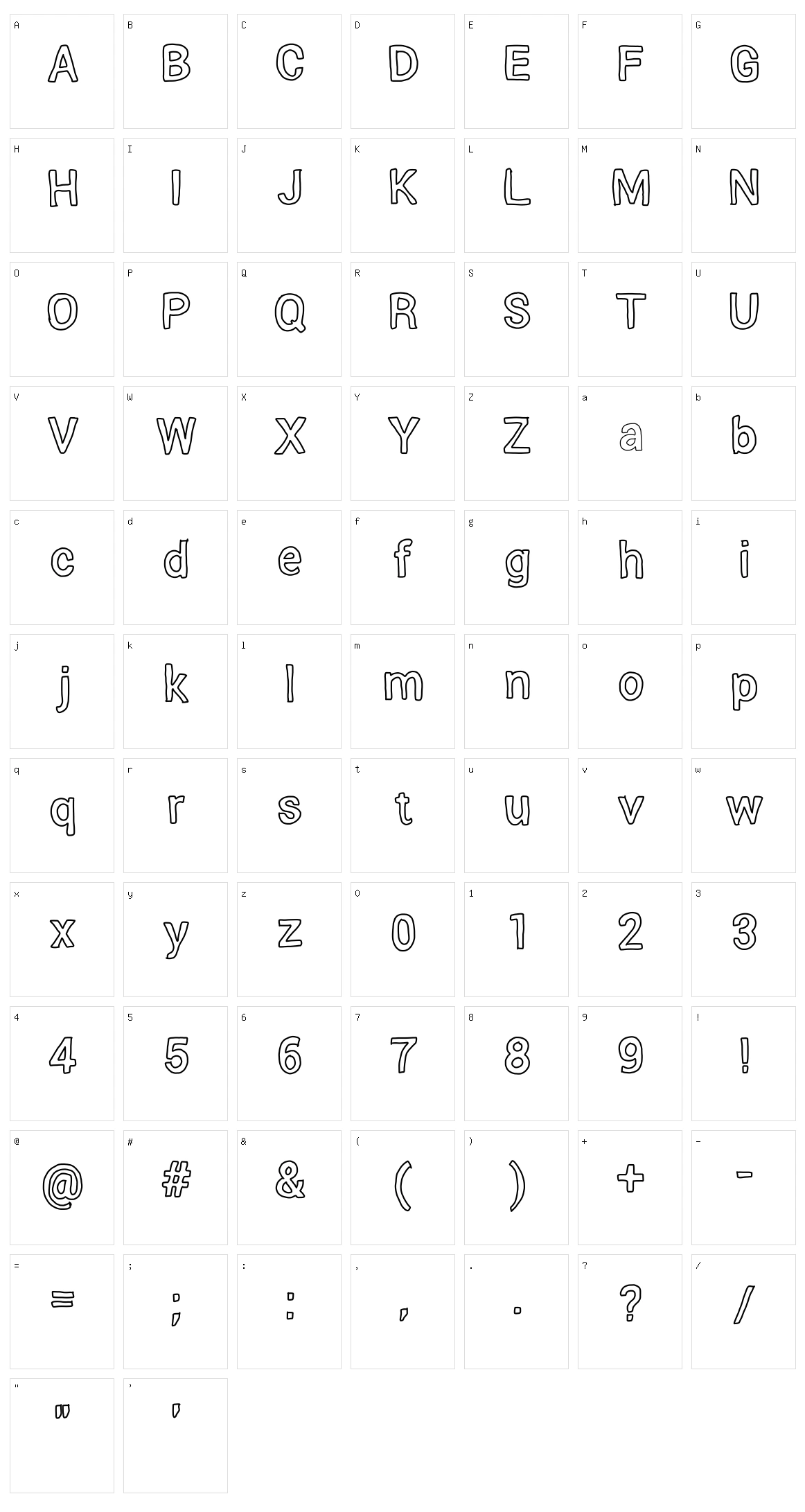
The free font Verumai is carefully designed by Tharique Azeez, showcasing a thoughtful balance of creativity and usability and falls under the Cartoon font style. When you download the ZIP file, it contains only 48.02 KB of font files, making it lightweight and quick to download. Please review the license details below to understand permitted usage and distribution rights. If license information is not available, we recommend using this font for personal projects only or contacting the author directly for commercial usage permissions.
Created by Tharique Azeez